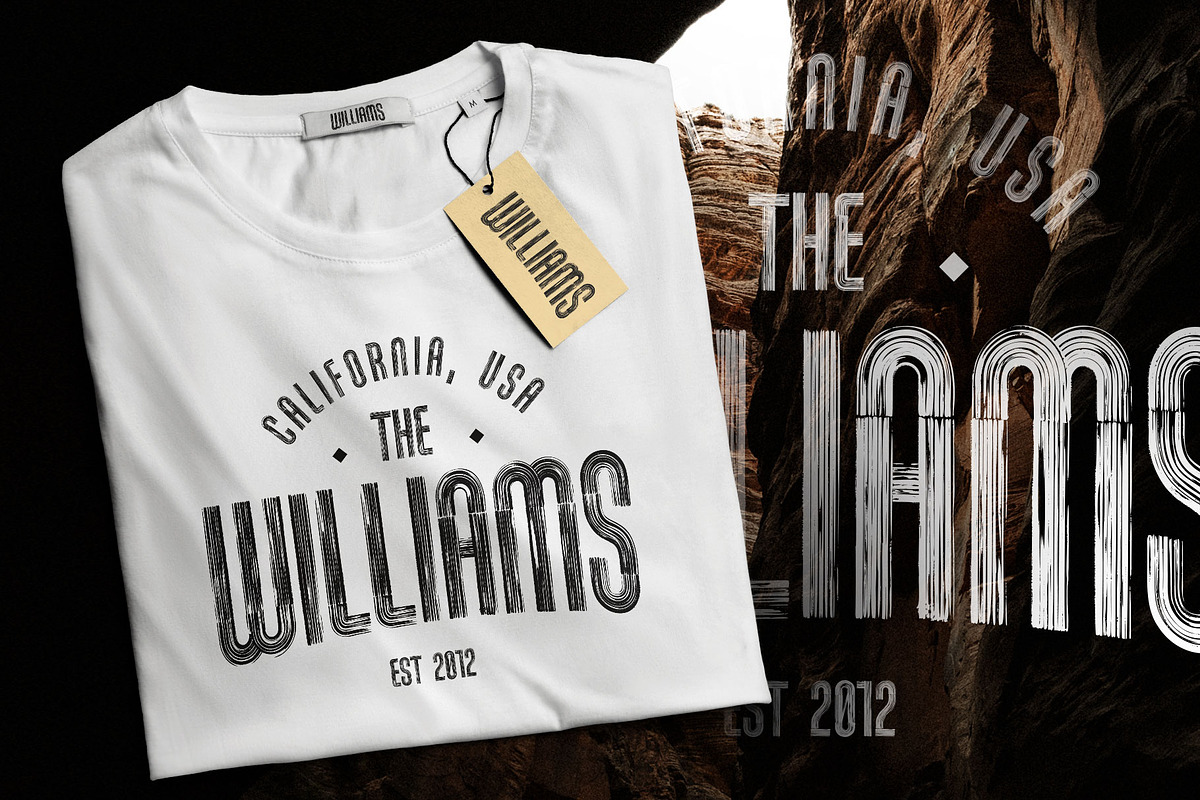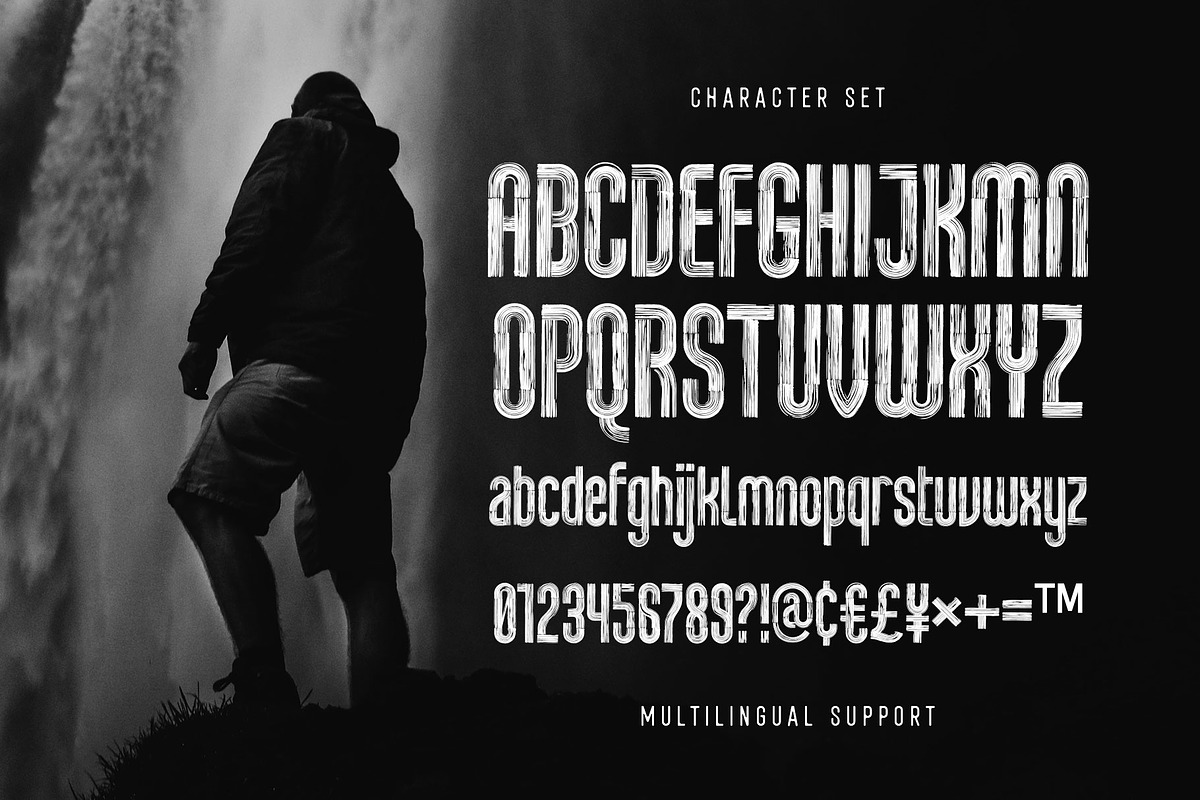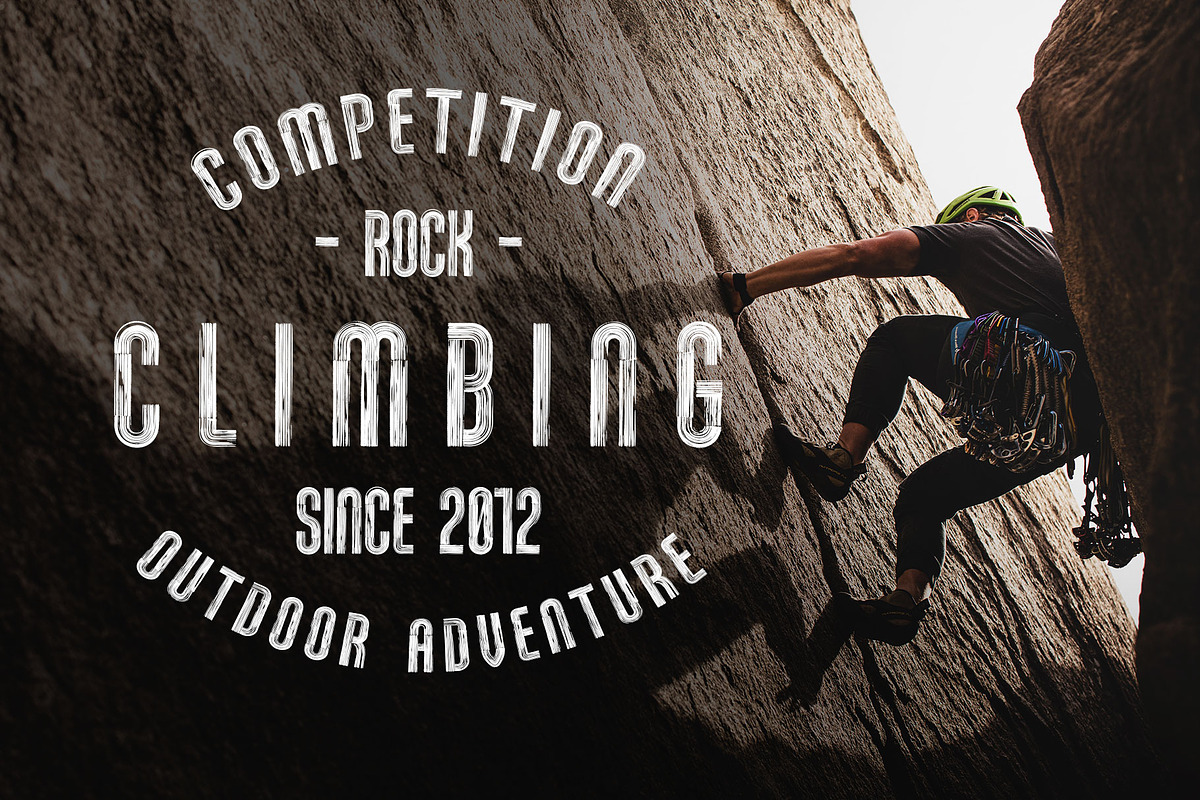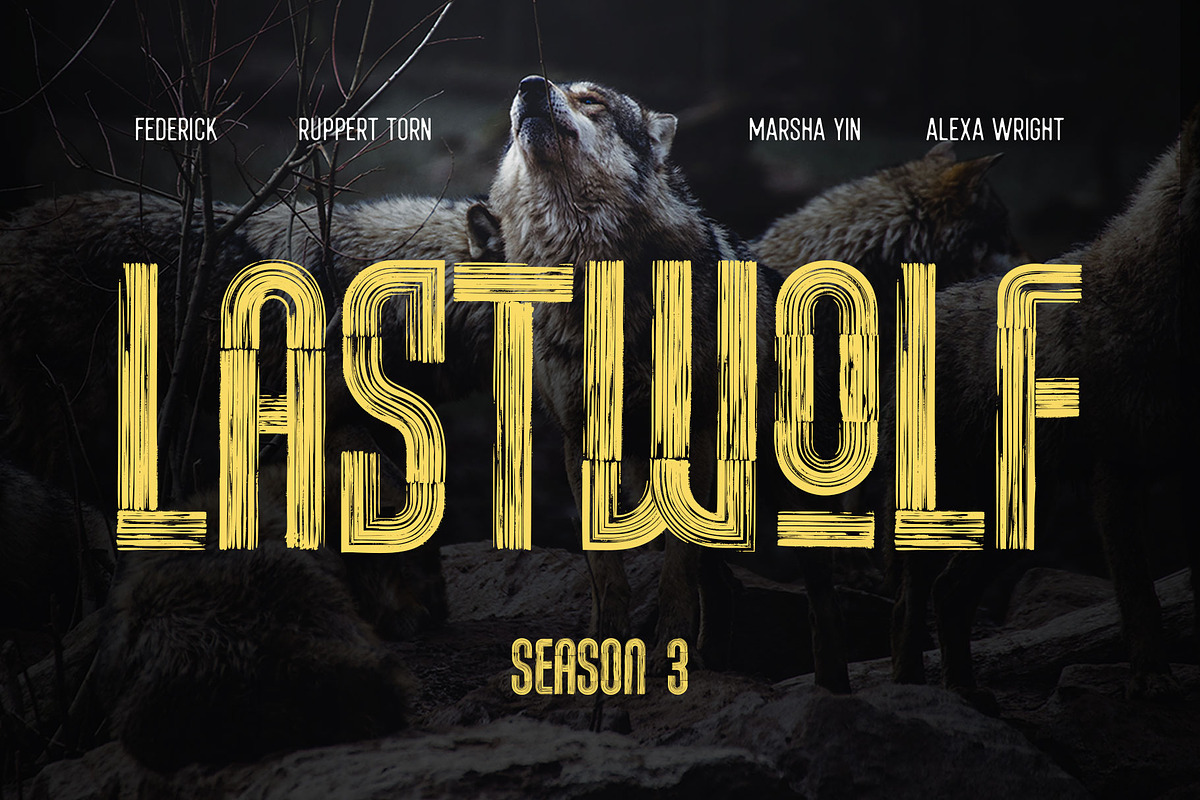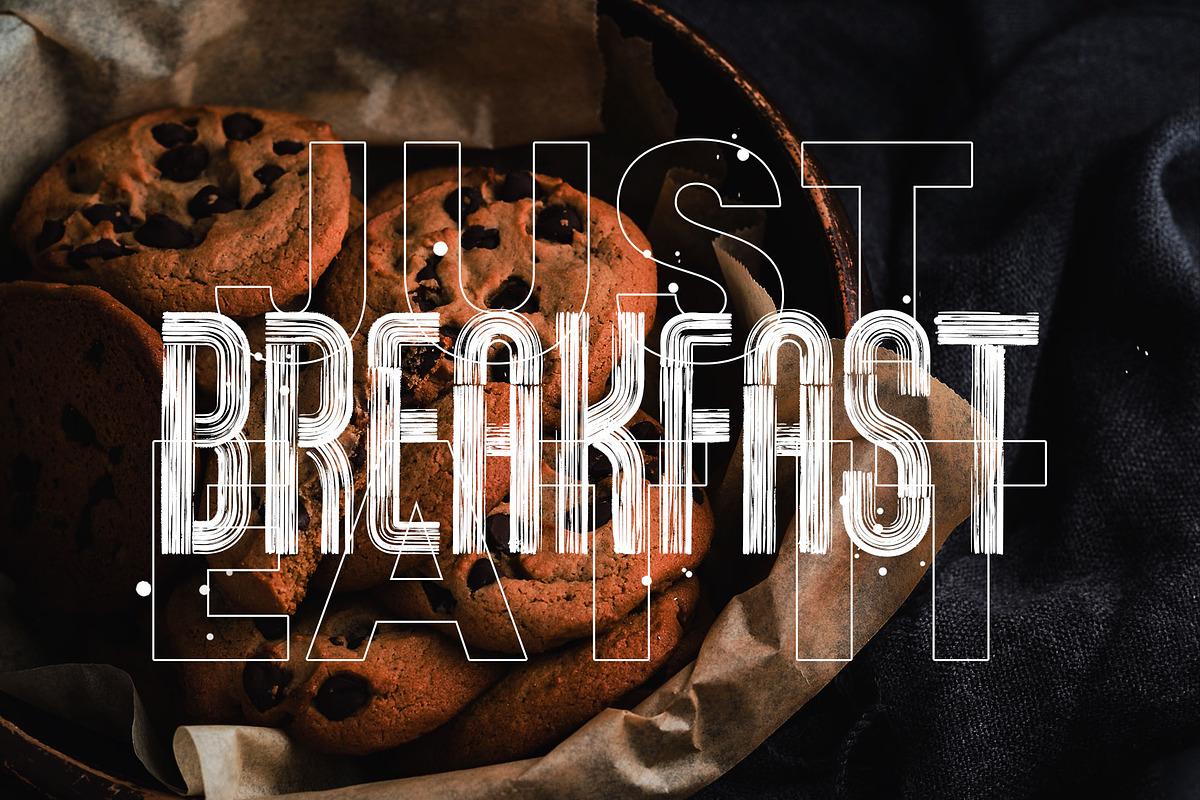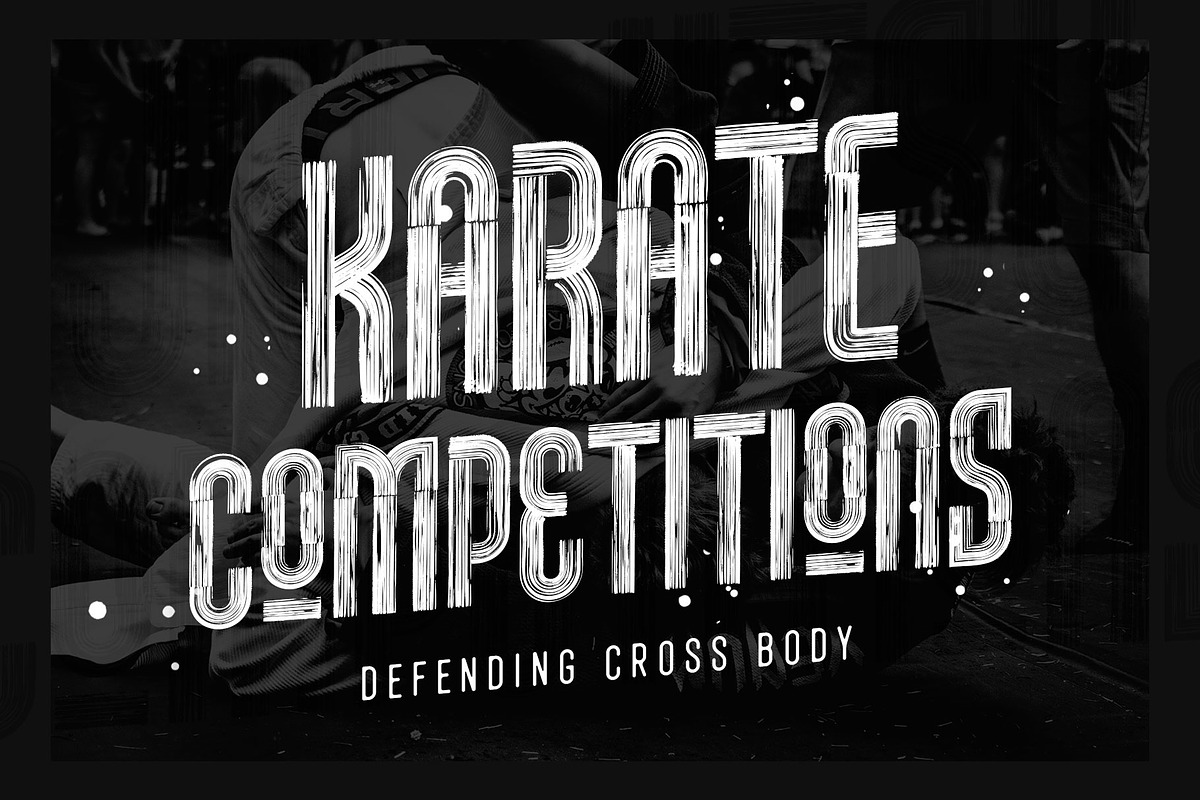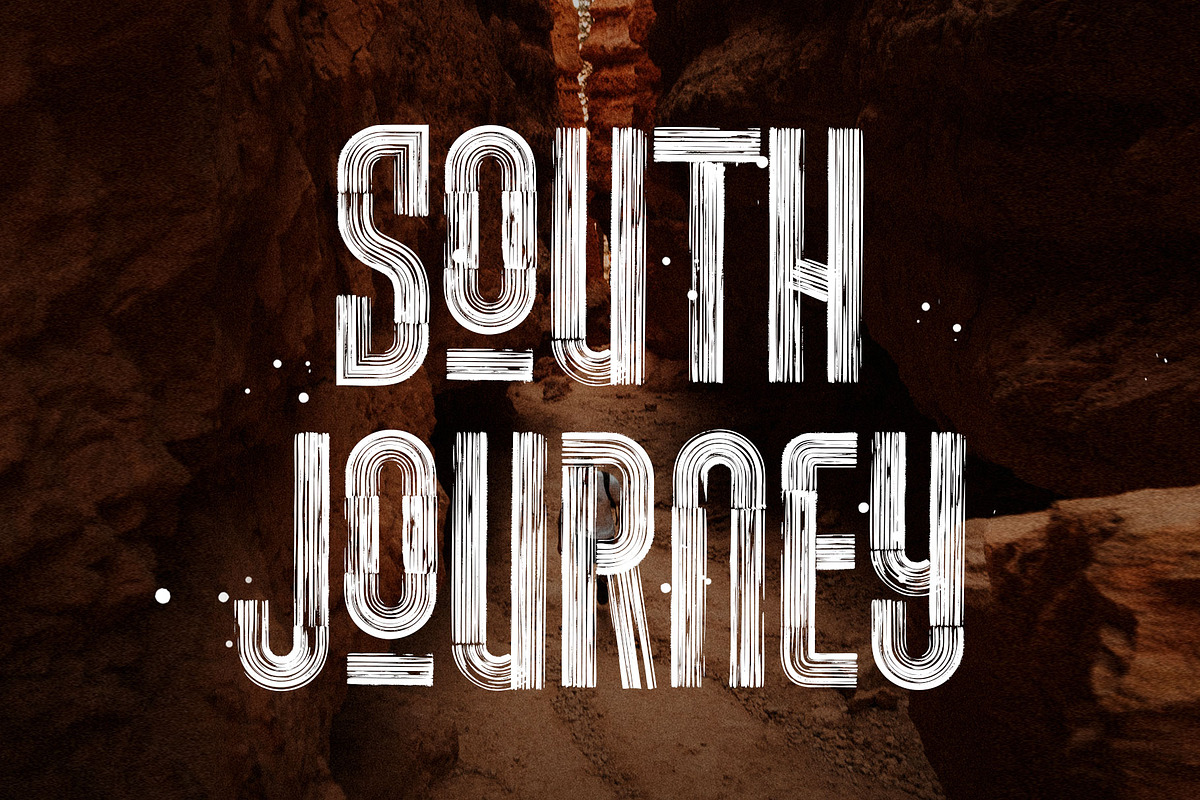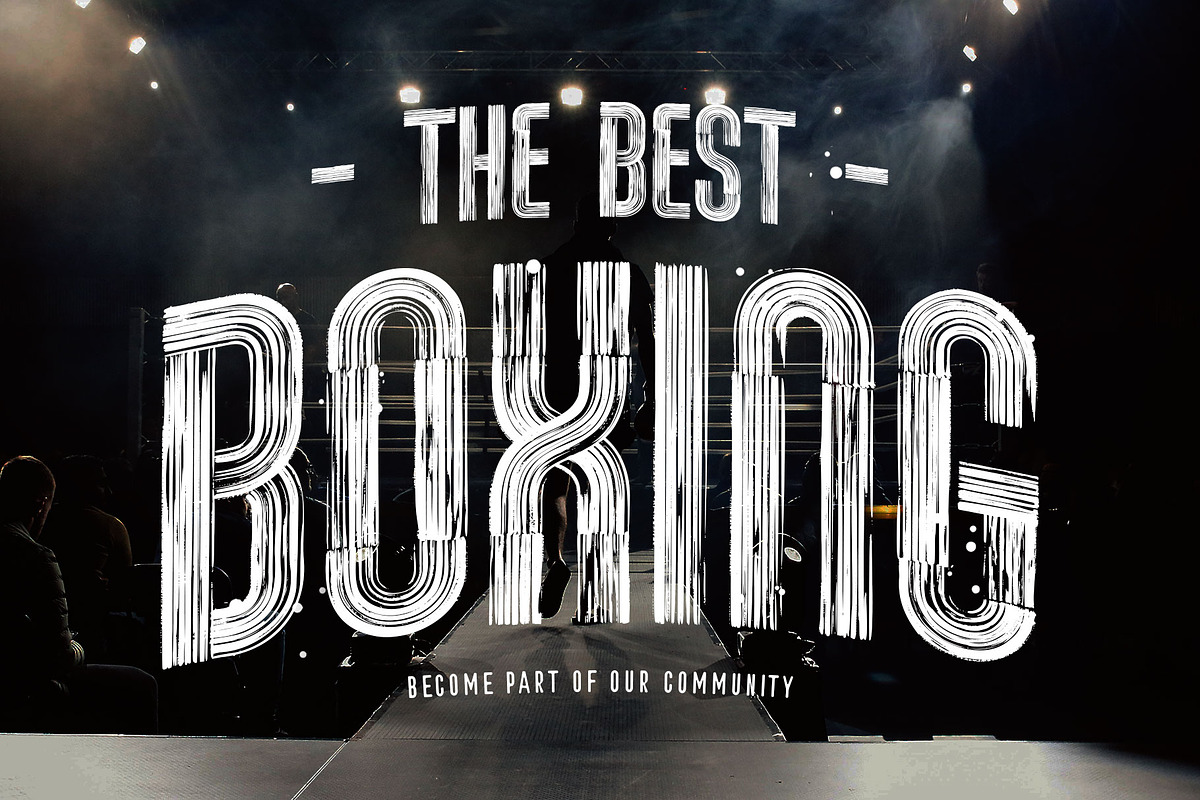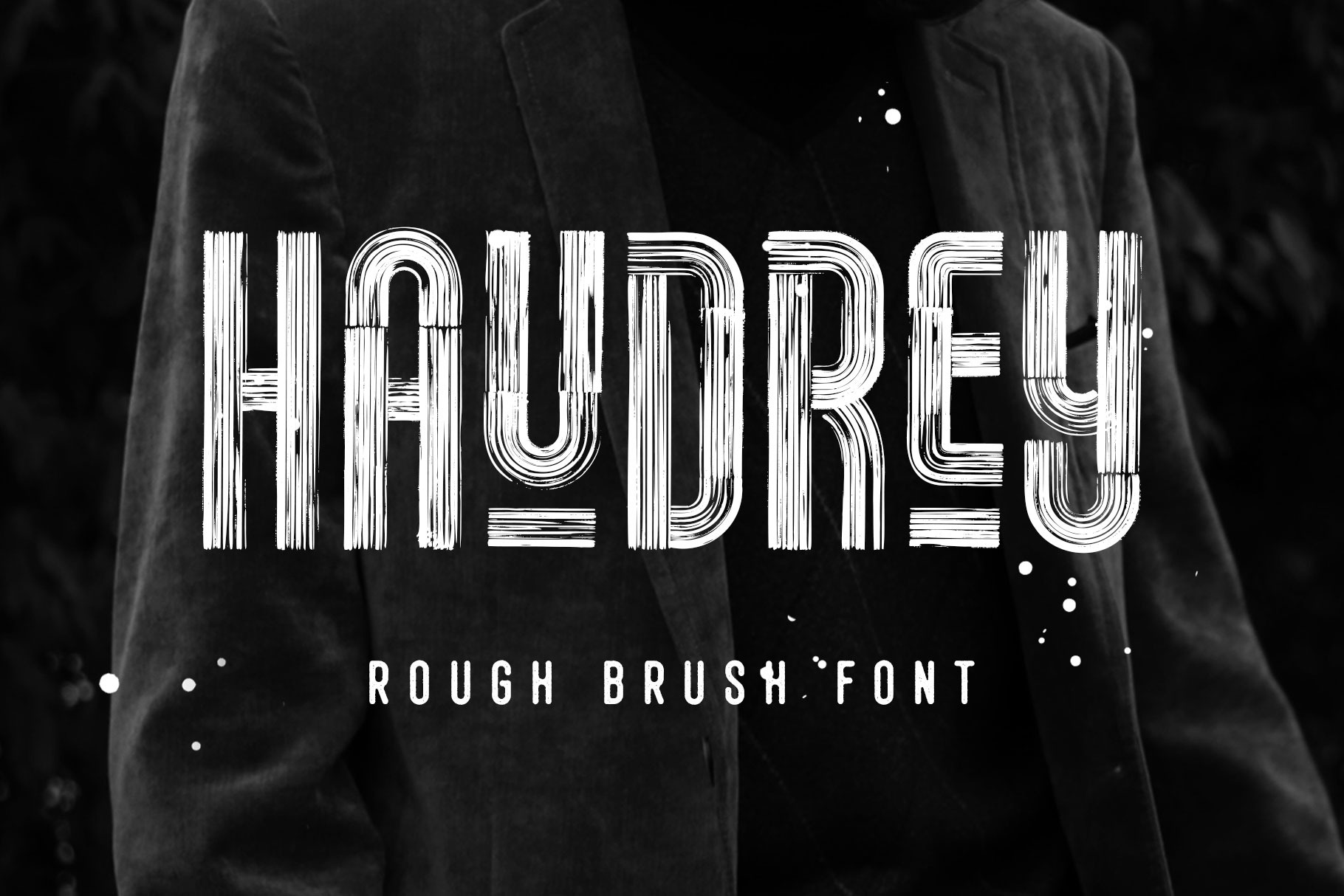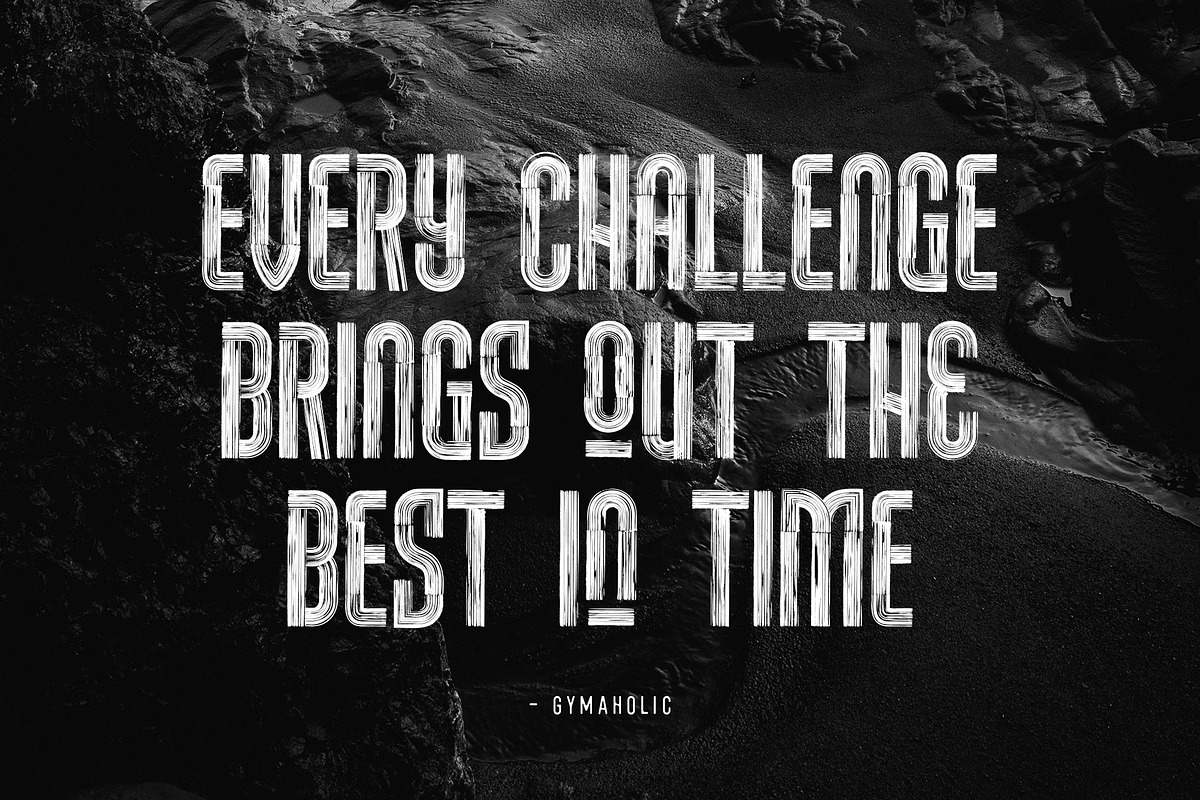
Haudrey - Hand-painted Font
Proudly presents Haudrey, a handpainted typeface with a strong, condensed and bold style. Carefully crafted with dashed lines on the letterform and giving authentic handpainted and cool texture.
Haudrey is surprisingly versatile, and you can apply it to many design projects. This font is perfect for display, headline, logo, poster, sports, food menu, flyer, apparel, stickers, and more! You can make a lot of fun with this font.
This textured font is equipped already with special characters, stylistic alternates, multilingual support, and PUA Encoded which means you don't need any special software to access all the characters.